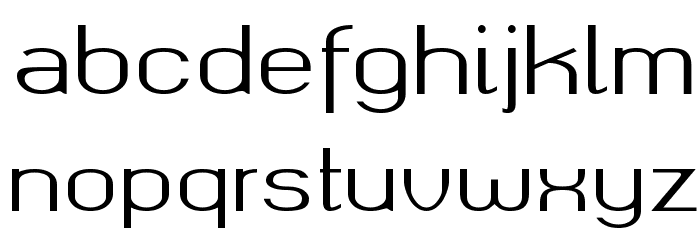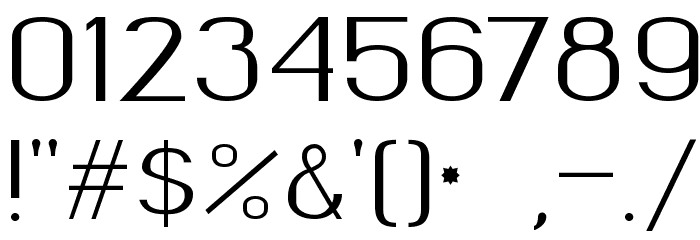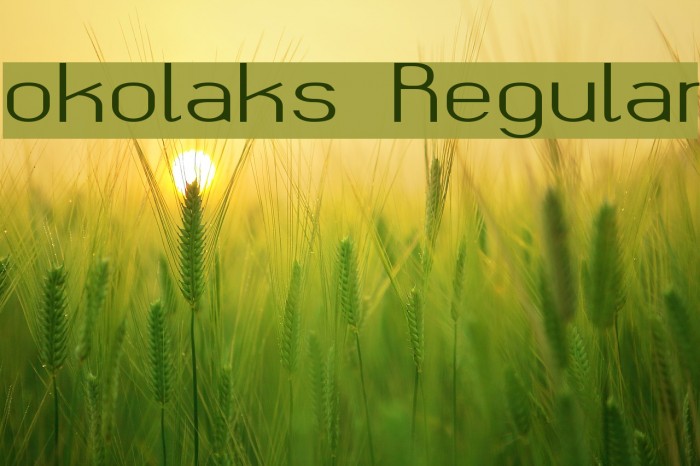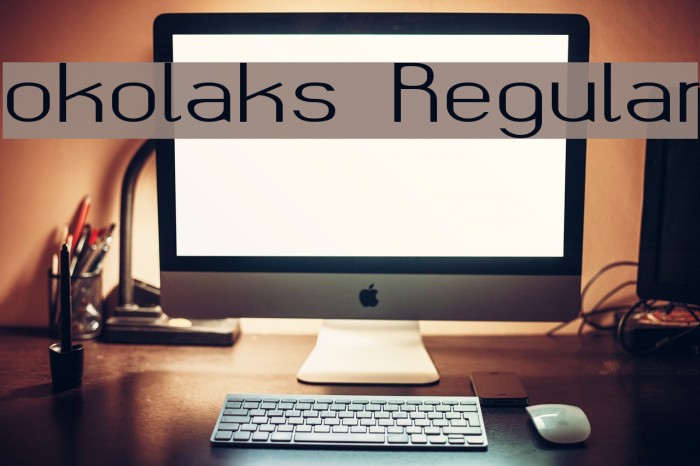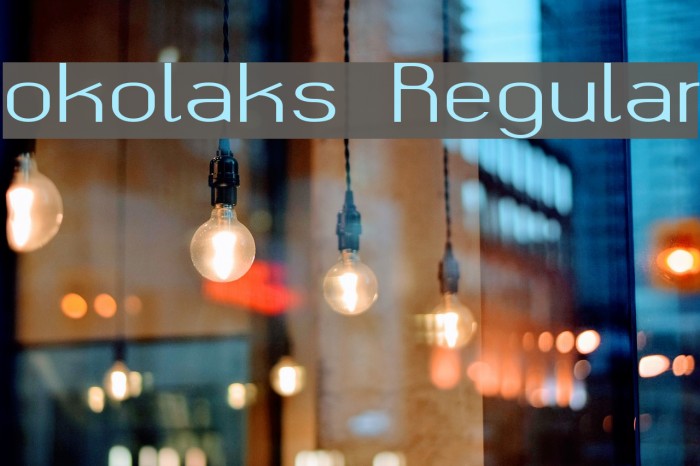
okolaks Regular Font
This font exhibits a modern and clean design with a geometric structure. The characters are uniform in width, giving it a monospaced appearance, although it is not strictly monospaced. The uppercase letters are bold and assertive, while the lowercase letters maintain a consistent height, contributing to a balanced and harmonious look. The numerals are clear and legible, making them suitable for various applications. Special characters are well-defined, adding to the font's versatility. Overall, the font's simplicity and clarity make it ideal for digital and print media.
A modern, geometric font with uniform character width and clear legibility.
- Proposed Projects: Ideal for digital interfaces, coding environments, branding, and editorial design.